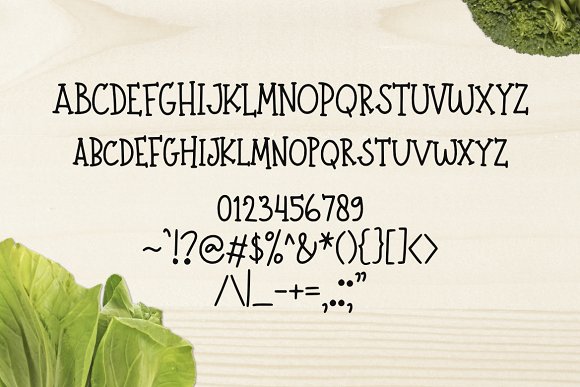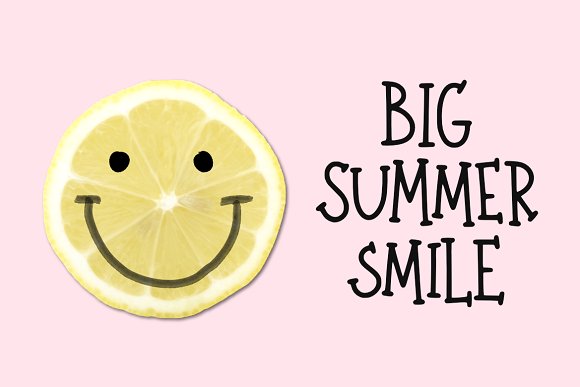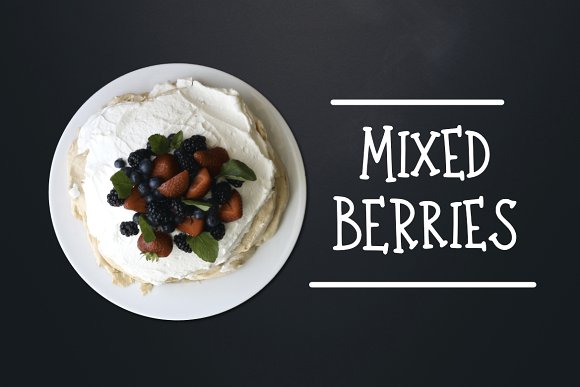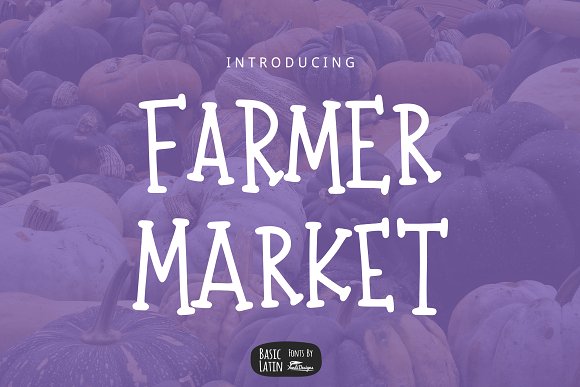
Farmer Market Simple Font
Farmer Market Font
Simple all caps multipurpose font , suitable for many project children book, quotes, logo , heading , title etc